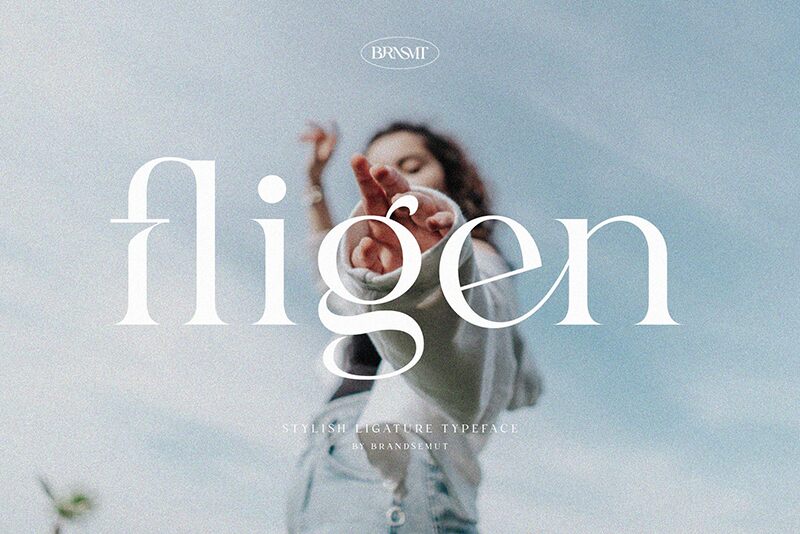
Introducing Fligen, a beautiful light serif font designed by Brandsemut. Perfect for creating elegant and timeless designs, Fligen is great for editorial projects, book covers, logo design and invitations.